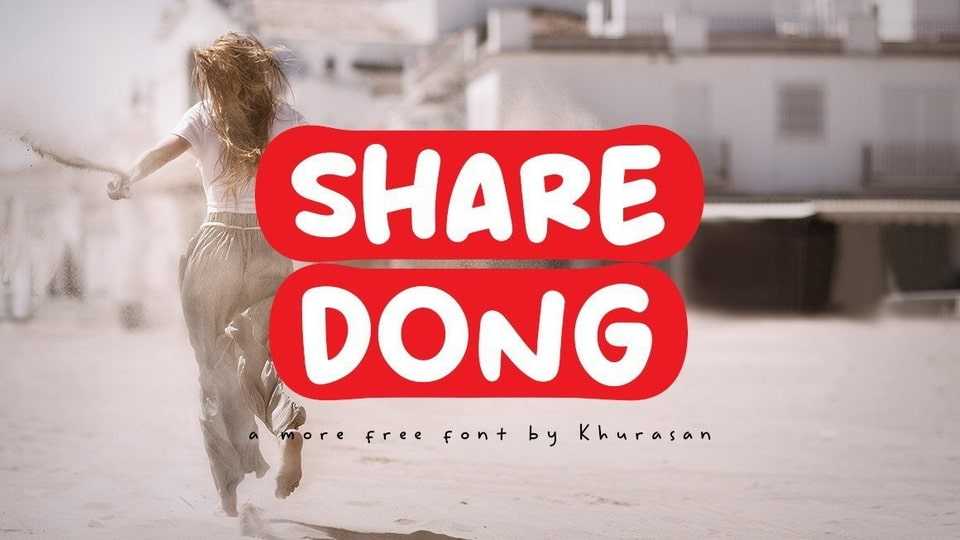
Download Share Dong font, a simple and natural handwritten typeface. Share Dong is perfect for posters, logos, magazines, book covers, banners, and other cool designs.